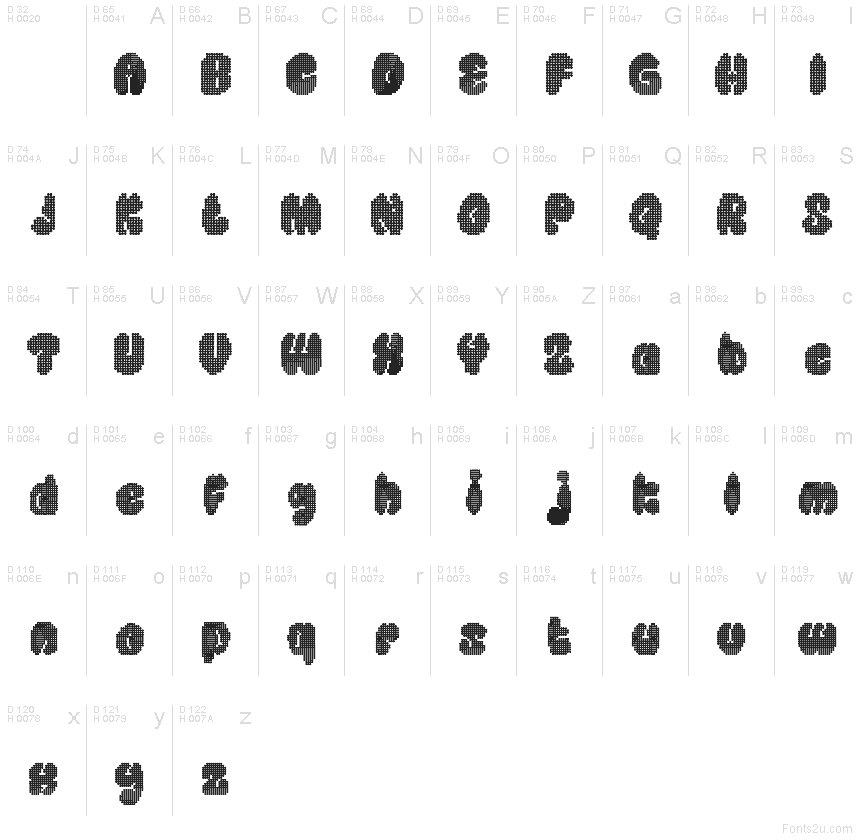
CalleyDisco-Regular Demo
Calley Disco font by Craft Supply Co. is a free bold digital display font. Built from a tight grid of tiny circular “lights,” its bubbly silhouettes glow like a marquee—chunky, playful, and a little hypnotic. The rhythm of evenly spaced dots softens the heft, creating a shimmering texture that reads clean at size while feeling tactile and alive, like sequins catching stage beams.
Using Calley Disco, headlines pop on party posters, nightclub flyers, retro album covers, music festival branding, event tickets, motion graphics titles, and social promos. This free font shines when you go big with slightly tighter tracking, letting the dot matrix fuse into a cohesive sparkle. Pair with a simple, neutral sans to handle body copy and keep the spotlight on the groove.